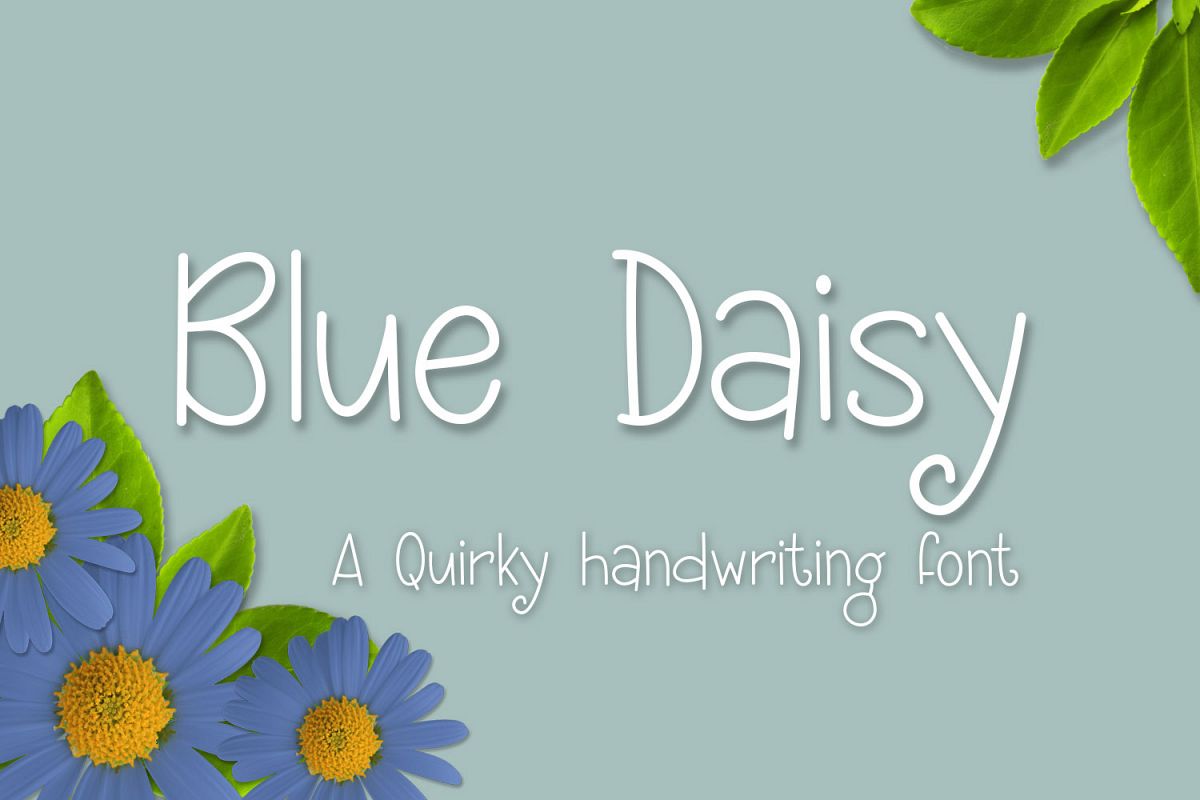
Blue Daisy is a thin and quirky handwriting font.
Language support for most latin languages. Add some fun to your design with ease using this font!
Looks great on apparel, cards, invitations, posters etc.